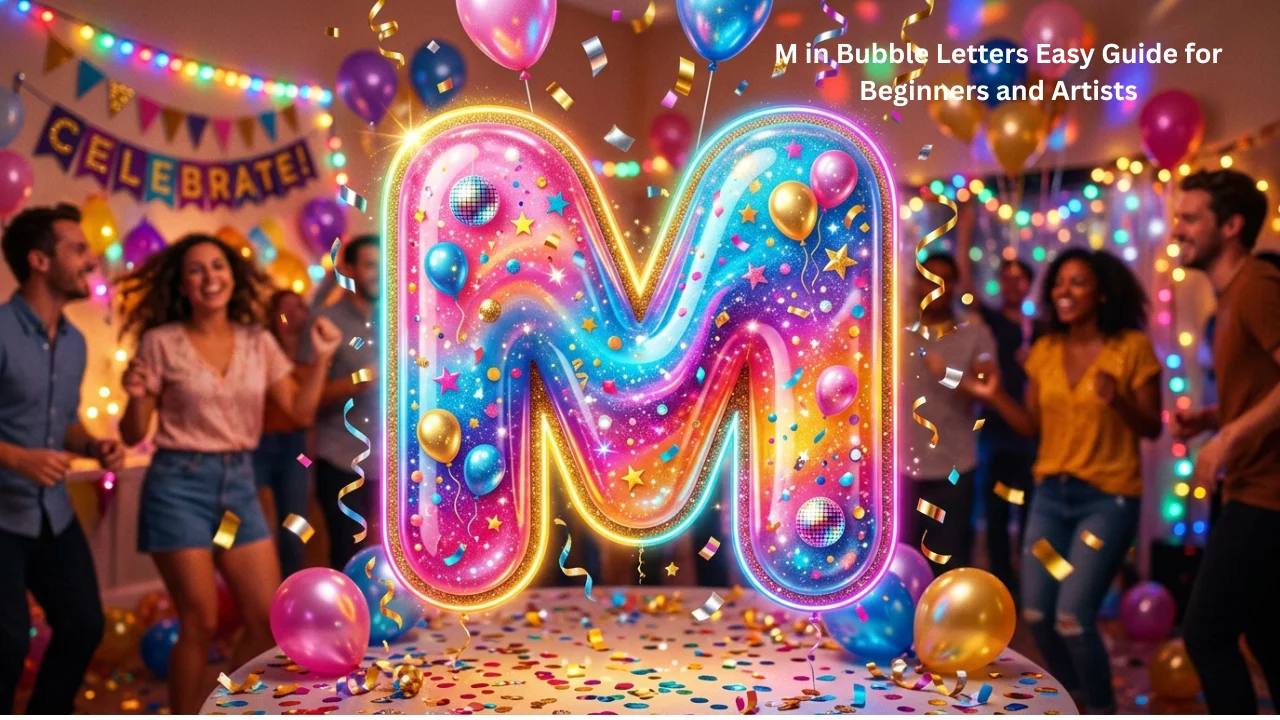
M in Bubble Letters Easy Guide for Beginners and Artists
Bubble letters are fun, bold, and eye-catching. They turn simple letters into playful shapes that stand out on paper, posters, and digital art. If you want to learn how to draw m in bubble letters, this guide will help you step by step. You will also learn styles, tips, and creative ideas to improve your lettering skills.
What Are M Bubble Letters?
Bubble letters are round, thick, and soft-looking letters. They look like they are made from bubbles or balloons. This style is popular in graffiti, school projects, logos, and creative designs.
Key features of bubble letters:
• Rounded edges instead of sharp corners
• Thick lines and bold shapes
• Playful and informal look
• Easy to customize with colors and patterns
When you draw m in bubble letters, you follow these same rules but shape the letter “M” into a smooth, bubbly form.
Why Learn M in Bubble Letters?
The letter “M” is very common. It appears in names, words, and designs. Learning m in bubble letters helps you build a strong base for creating stylish alphabets.
Benefits include:
• Improves creativity
• Helps in poster and banner design
• Builds confidence in drawing letters
• Useful for social media graphics
Step-by-Step Guide to Draw M in Bubble Letters
Follow this simple method to create a clean and attractive bubble letter M.
Step 1: Draw the Basic Shape
Start by drawing a normal “M” using light pencil lines. Keep it simple and straight.
Step 2: Add Thickness
Now draw another line around the “M.” Keep equal space around all sides. This creates the bubble effect.
Step 3: Round the Edges
Remove sharp corners and make them round. This is the most important step when drawing m in bubble letters.
Step 4: Clean Up the Lines
Erase the inner guide lines. You should now see a bold, rounded “M.”
Step 5: Add Details
Add small highlights, shadows, or patterns. This gives your letter depth and style.
Step 6: Color It
Use bright colors like blue, pink, yellow, or gradient shades. Coloring makes your bubble letter stand out.
Different Styles of M in Bubble Letters
You can draw m in bubble letters in many creative ways. Each style gives a different feel.
1. Classic Bubble Style
This is the most basic version. It has smooth curves and simple thickness.
2. Graffiti Bubble Style
This style looks more urban and bold. It may include shadows, outlines, and 3D effects.
3. Cartoon Style
This version looks playful and fun. You can add eyes, faces, or expressions.
4. 3D Bubble Letters
These letters have depth. Add shadows behind the letter to make it look raised.
5. Pattern-Filled Letters
Fill your letter with stars, dots, stripes, or textures.
Style Comparison Table
Style TypeDifficulty LevelBest Use CaseKey Feature
ClassicEasyBeginnersSimple rounded shape
GraffitiMediumStreet artBold and expressive
CartoonEasyKids projectsFun and animated look
3D StyleMediumPosters, logosDepth and shadow
Pattern FilledEasyCreative designsDecorative interiors
Common Mistakes to Avoid
When learning m in bubble letters, beginners often make small mistakes. Avoid these to improve faster.
Do not:
• Make lines too thin
• Keep sharp corners
• Draw uneven spacing
• Skip the outline step
• Overcomplicate the design
Tip: Always start light with pencil before using a marker.
Tools You Can Use
You do not need expensive tools to draw bubble letters. Simple items work well.
Basic Tools Table
Tool TypePurpose
PencilSketching base shape
EraserFixing mistakes
MarkerBold outlining
Color pencilsAdding color
SketchbookPractice and design
You can also use digital tools like drawing apps if you prefer.
Tips to Make Your Bubble Letter M Stand Out
To improve your m in bubble letters, focus on creativity and detail.
Useful tips:
• Add shadows on one side
• Use two or more colors
• Add highlights for shine
• Try different sizes
• Keep spacing balanced
Important: Practice daily. Even 10 minutes helps improve your skill.
Creative Ideas for Using Bubble Letter M
Once you learn how to draw m in bubble letters, you can use it in many ways.
Design Ideas
• Name posters
• School projects
• Social media graphics
• Greeting cards
• Logo design
You can also combine it with other bubble letters to form words.
Practice Exercise
Try this simple exercise to improve:
1. Draw 5 different versions of bubble letter M
2. Use different styles each time
3. Color each one differently
4. Compare and improve
Goal: Make each version better than the last.
Advanced Techniques
Once you master the basics, try these advanced ideas.
Add Shadow Effects
Draw a shadow behind the letter. This creates a 3D look.
Use Gradient Colors
Blend two colors smoothly for a modern style.
Outline Twice
Add a second outline around the letter for extra boldness.
Texture Fill
Fill your m in bubble letters with patterns like flames, clouds, or shapes.
SEO and Design Relevance
Many designers search for m in bubble letters to use in digital content. This style is popular because it grabs attention quickly.
Why it works:
• Easy to read
• Visually attractive
• Works for all age groups
• Great for branding and fun content
Using bubble letters can improve the visual appeal of your designs.
Need To Know: O in Bubble Letters Step-by-Step Guide for Beginners
FeatureDescription
ShapeRounded and thick
StylePlayful and bold
DifficultyBeginner-friendly
UsesPosters, art, digital graphics
CustomizationColors, patterns, shadows
Learning how to draw m in bubble letters is simple and fun. You only need basic tools, a little practice, and creativity. Start with a simple shape, add thickness, round the edges, and then decorate your letter. Over time, you will improve and develop your own style.
Bubble letters are not just for fun—they are useful in art, design, and communication. If you keep practicing and trying new ideas, you can turn a simple letter into a creative masterpiece.